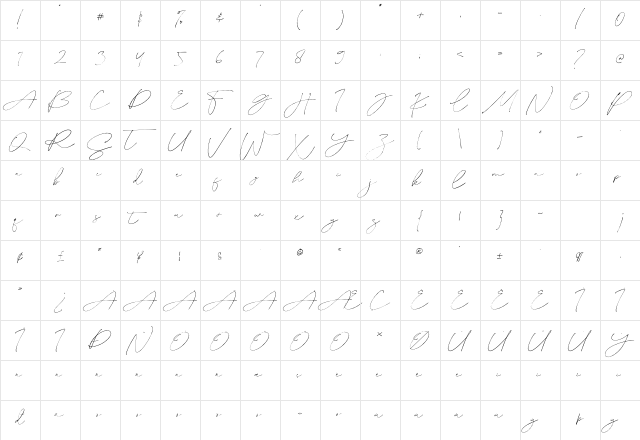
Billion Regular Font Preview
Billion Regular
Billion Regular Font Details
| Foundry | alphArt Co. |
| Designer | Agung Rohmat |
Design Context for Billion Typeface
Billion is a composed and adaptable typeface that performs quietly and consistently across a wide range of design contexts.